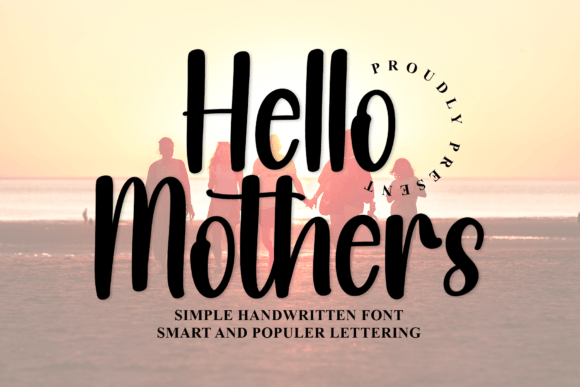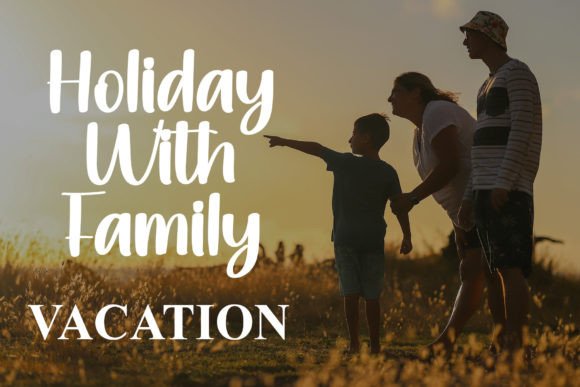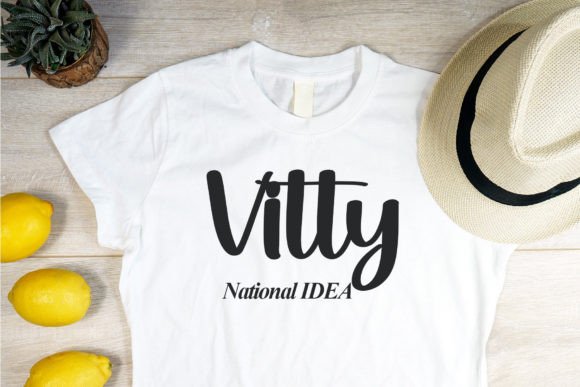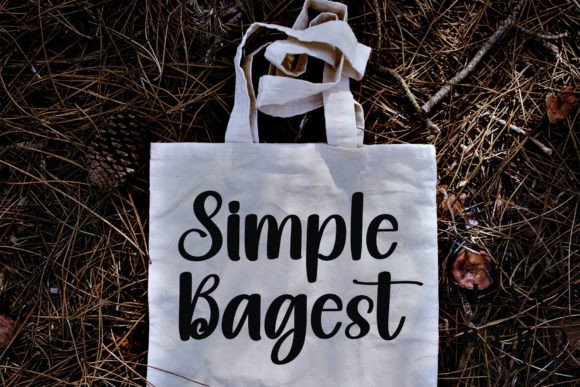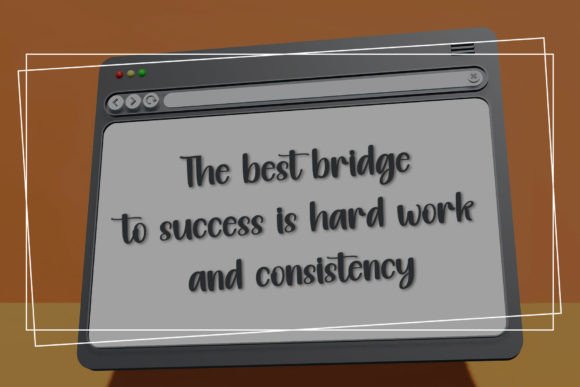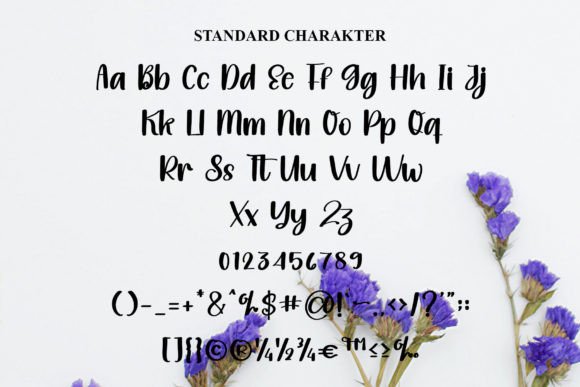
A Heartfelt Hello: Discovering the Delightful Hello Mothers Font
Have you ever sat down to create a heartfelt message for a loved one, only to find yourself struggling to put your feelings into words? For designers, this is a common challenge, especially when it comes to projects that celebrate the special bond between a mother and child. It was during one such moment that I stumbled upon Hello Mothers Font, a delightful and whimsical script font that immediately caught my eye.
Hello Mothers Font is more than just a font – it’s a way to express the love and affection that mothers bring to our lives. Its playful letterforms and gentle curves evoke a sense of maternal care and affection, making it the perfect choice for family-themed projects, greeting cards, or any design that celebrates the joy of motherhood.
For designers, Hello Mothers Font is a valuable addition to their toolkit, offering a unique and emotive way to bring their designs to life. Whether you’re creating a birthday card for a mom, a family portrait, or a heartfelt letter, Hello Mothers Font is sure to add a touch of warmth and love to your work.
Hello Mothers Font Key Features
- Unique Characteristics: The font features a modern, elegant script with a unique blend of cursive and serif elements, making it perfect for creative projects and personal branding.
Hello Mothers Font Review
As a designer, I was excited to dive into the Hello Mothers Font and see what it had to offer. Overall, I’d say it’s a sweet and playful font that’s perfect for projects where you want to convey a sense of warmth and approachability.
- It’s a great choice for typography-heavy projects, as the font’s flowing lines and organic feel make it easy to read.
- The font’s flexibility makes it suitable for a wide range of applications, from body text to headings and titles.
- The font’s customization options are also a plus, allowing you to fine-tune the look and feel to suit your project’s needs.
- The font’s cursive style may not be the best choice for projects where a more formal or professional tone is required.
- Some of the font’s characters may be a bit too ornate or decorative, which could detract from the overall readability.
While the Hello Mothers Font may not be the most versatile or cutting-edge font out there, it’s a solid choice for projects where you want to convey a sense of warmth and approachability. With its flowing lines and organic feel, it’s perfect for projects like greeting cards, invitations, or other materials where you want to create a sense of connection with your audience.
The Hello Mothers Font is ideal for:
- Creating custom invitations and greeting cards.
- Designing feminine and elegant branding materials.
- Adding a touch of whimsy and playfulness to children’s designs.
For best results, use the Hello Mothers Font in conjunction with pastel colors and delicate illustrations.